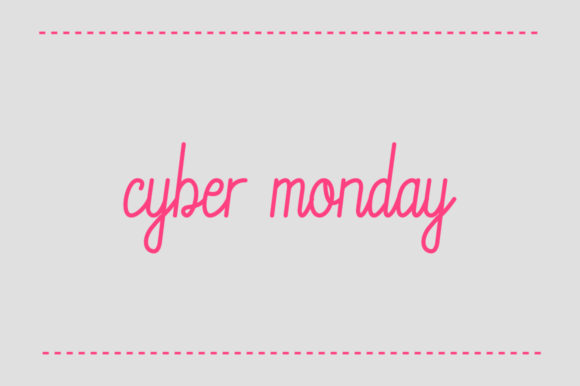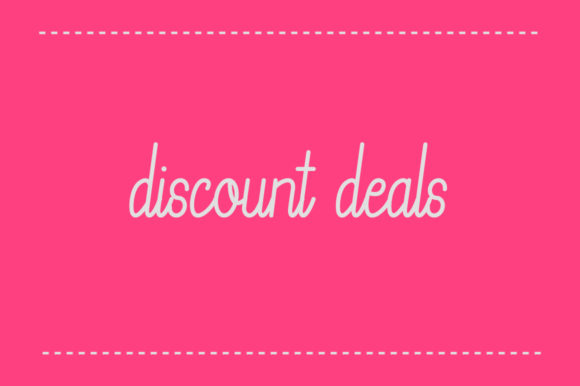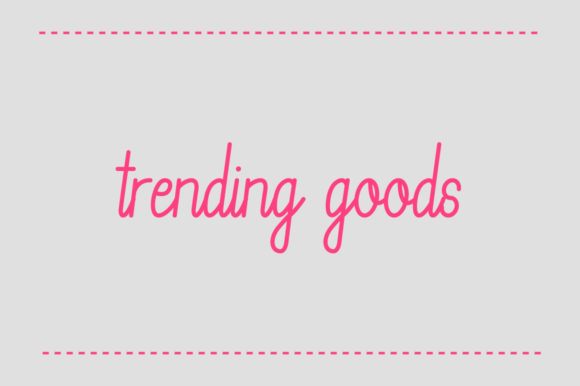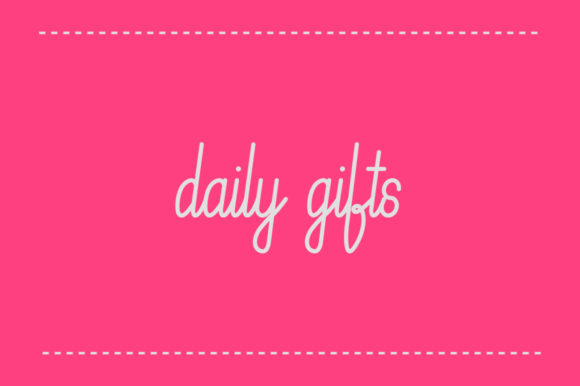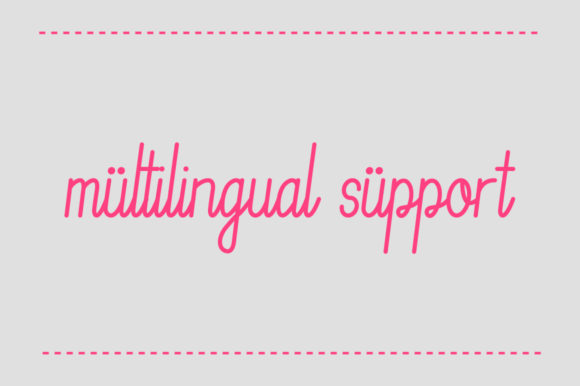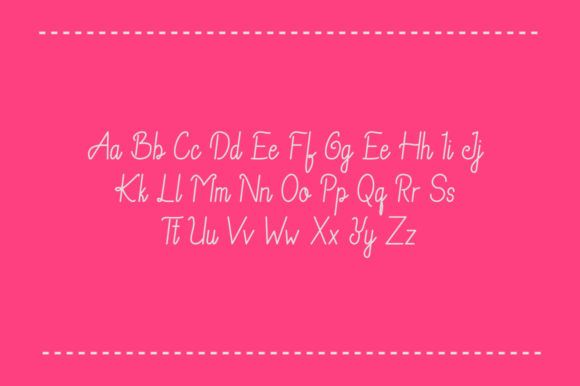
Discover the Charm of Helendia Font: A Smooth and Lovely Round Font for Your Creative Projects
Are you a designer, crafter, or DIY enthusiast looking for a font that can add a touch of elegance and playfulness to your projects? Look no further than the Helendia Font! This smooth and lovely round font is perfectly suited for a wide variety of projects, from digital designs to handmade crafts. In this article, we’ll dive into the world of Helendia Font and explore its features, benefits, and uses.
What is Helendia Font?
Helendia Font is a unique and charming typeface that boasts a smooth and rounded design. Its gentle curves and friendly appearance make it an excellent choice for projects that require a touch of warmth and approachability. Whether you’re creating a logo, crafting a social media post, or designing a handmade card, Helendia Font is sure to impress.
Key Features of Helendia Font
- Smooth and Round Design: Helendia Font features a smooth and rounded design that gives it a friendly and approachable feel.
- Highly Versatile: This font is perfect for a wide range of projects, from digital designs to handmade crafts.
- Elegant and Playful: Helendia Font strikes the perfect balance between elegance and playfulness, making it suitable for various design styles.
- Easily Readable: The font’s clear and simple design ensures that it’s easily readable, even at small sizes.
Benefits of Using Helendia Font
So, why should you choose Helendia Font for your projects? Here are just a few benefits of using this lovely font:
- Adds a Touch of Elegance: Helendia Font can add a touch of sophistication and elegance to your designs, making them perfect for special occasions or professional projects.
- Creates a Friendly Atmosphere: The font’s smooth and rounded design creates a friendly and approachable atmosphere, making it ideal for projects that require a personal touch.
- Versatile and Adaptable: Helendia Font can be used in a variety of design styles, from modern and minimalist to vintage and whimsical.
- Easy to Pair with Other Fonts: This font pairs well with other fonts, making it easy to create unique and harmonious typography combinations.
Uses of Helendia Font
Helendia Font is a versatile typeface that can be used in a wide range of projects, including:
- Digital Designs: Use Helendia Font in your digital designs, such as social media posts, blog headers, and email newsletters.
- Handmade Crafts: Add a touch of elegance to your handmade crafts, such as cards, scrapbook pages, and DIY projects.
- Logos and Branding: Use Helendia Font to create a unique and memorable logo for your business or brand.
- Signage and Displays: This font is perfect for creating eye-catching signage and displays for events, exhibitions, or retail stores.
Tips for Using Helendia Font
Here are a few tips for using Helendia Font in your projects:
- Experiment with Font Sizes: Try using Helendia Font in different sizes to create visual interest and hierarchy in your designs.
- Pair with Other Fonts: Experiment with pairing Helendia Font with other fonts to create unique and harmonious typography combinations.
- Use in Combination with Images: Use Helendia Font in combination with images or graphics to add an extra layer of visual interest to your designs.
In conclusion, Helendia Font is a smooth and lovely round font that’s perfectly suited for a wide variety of projects. Its elegant and playful design makes it an excellent choice for designers, crafters, and DIY enthusiasts looking to add a touch of sophistication and friendliness to their work. With its versatility, readability, and charm, Helendia Font is sure to become a favorite in your design toolkit.